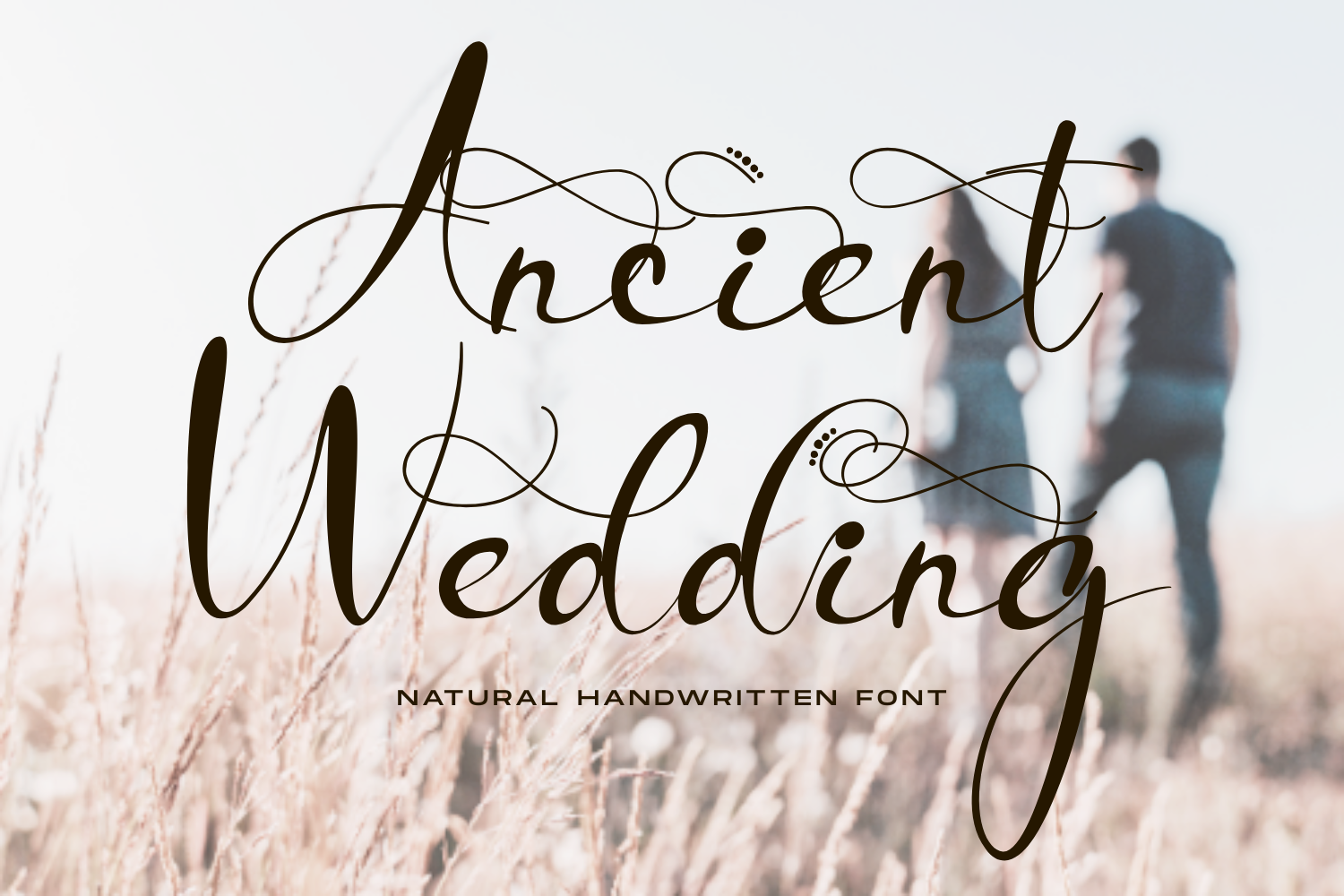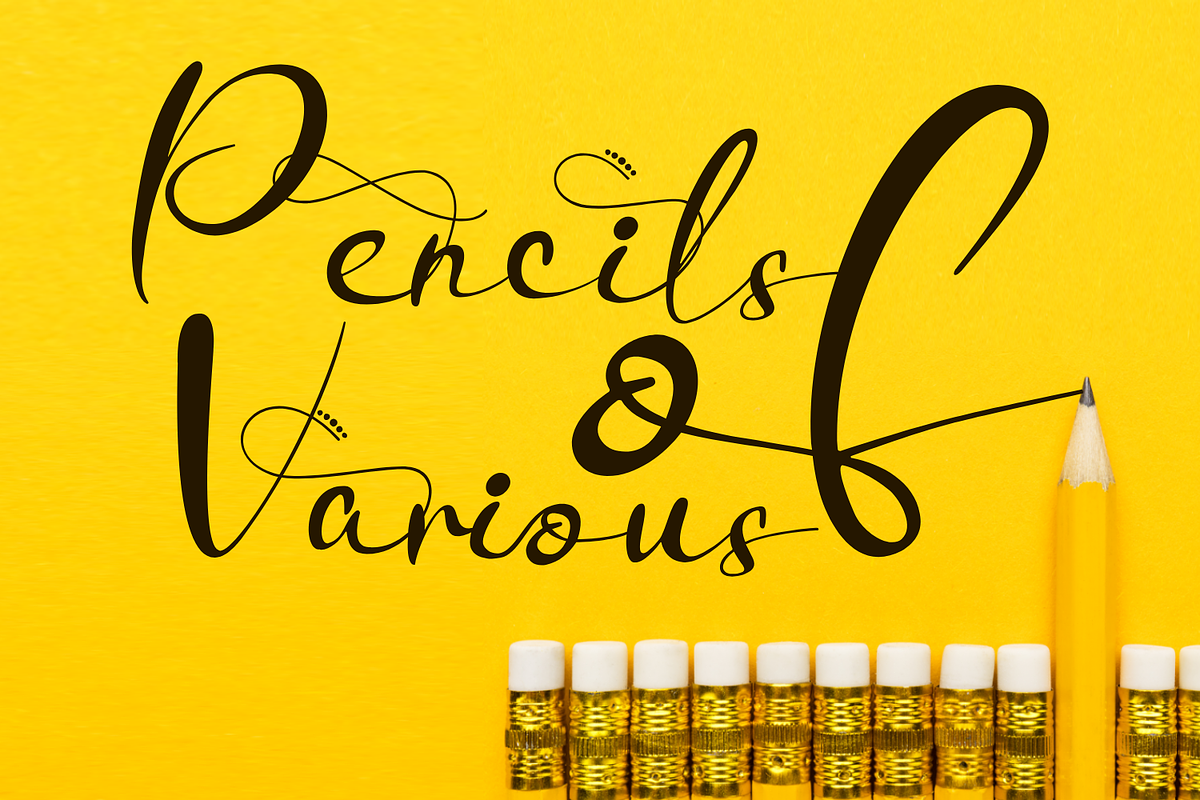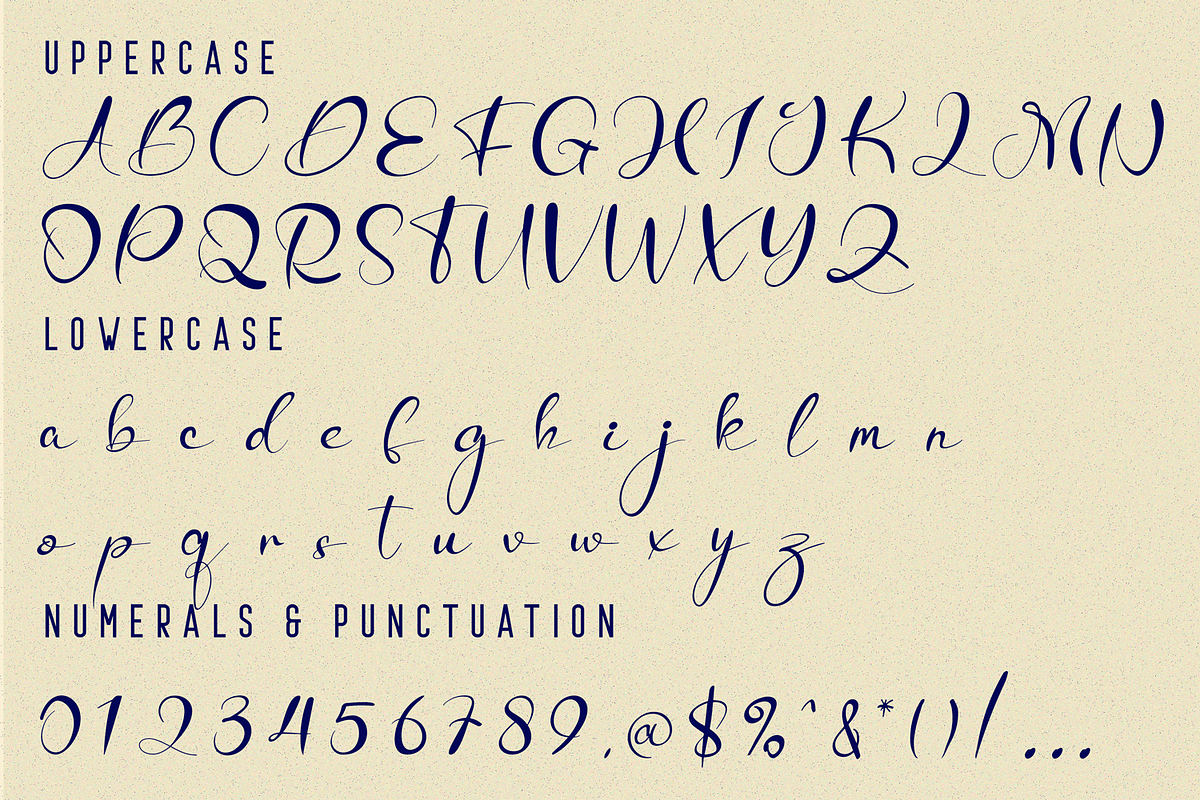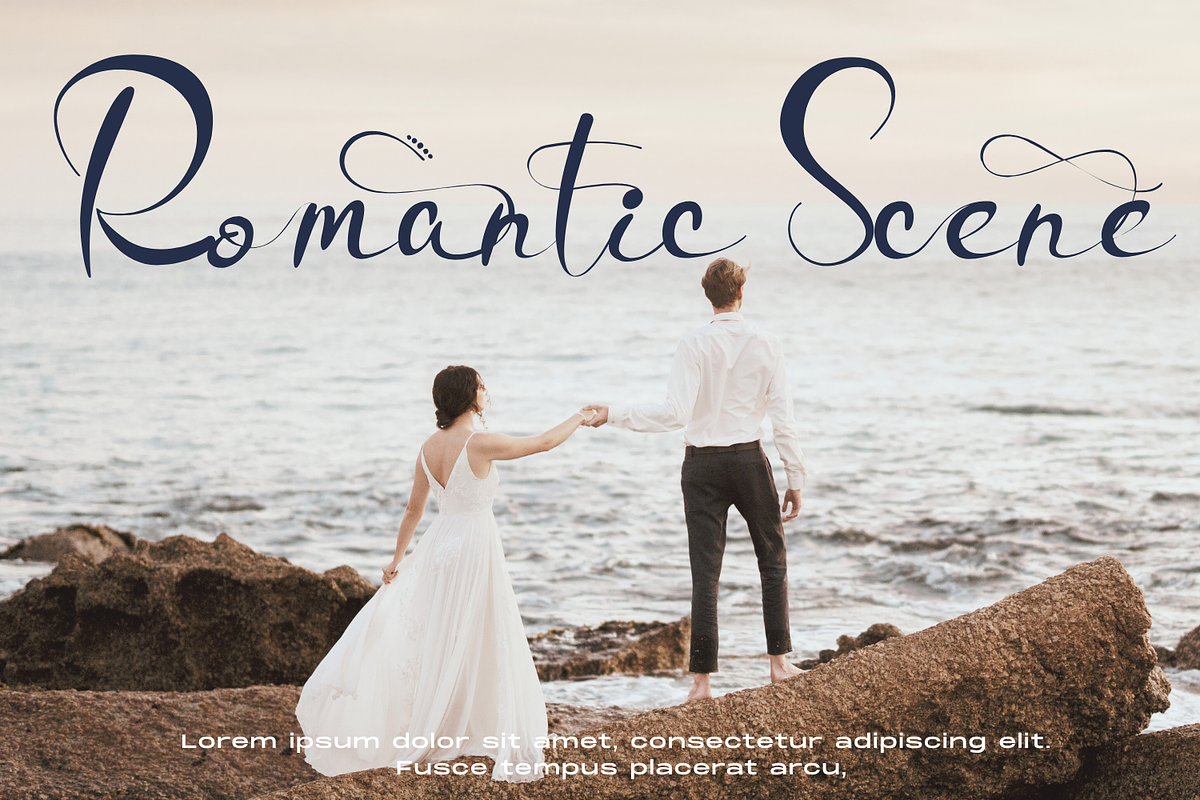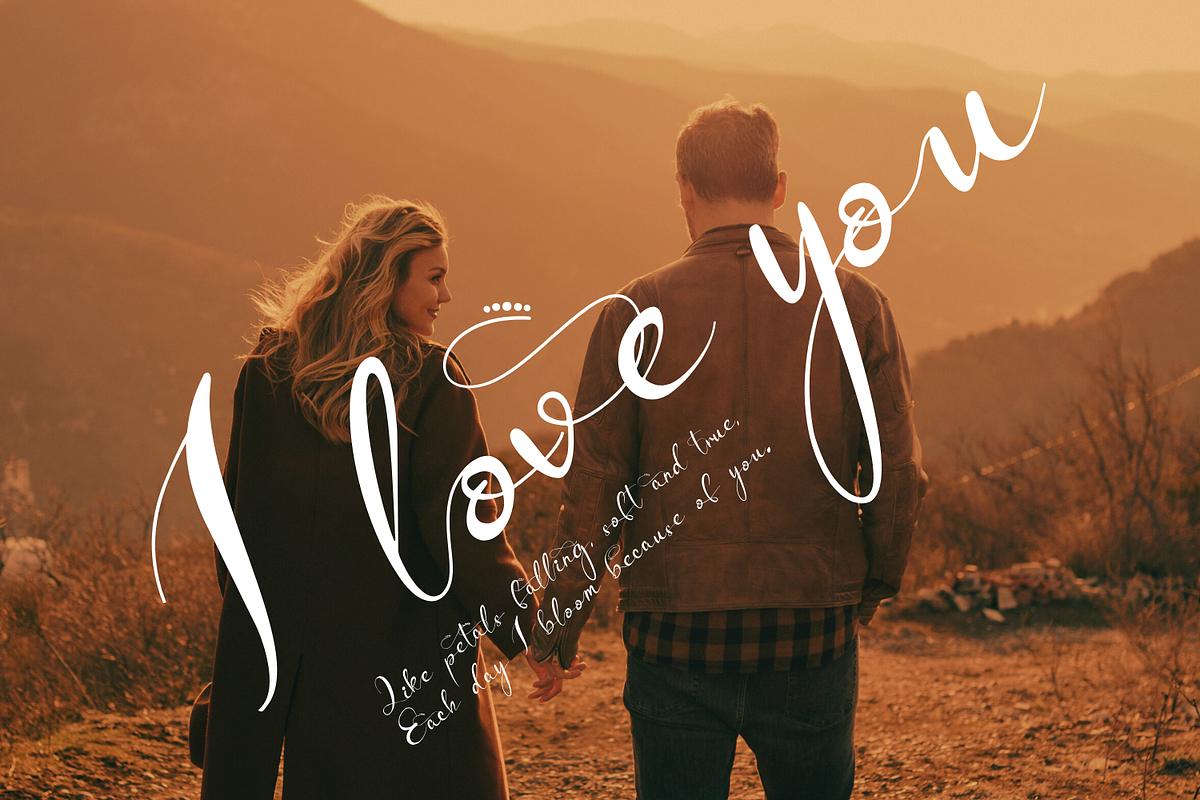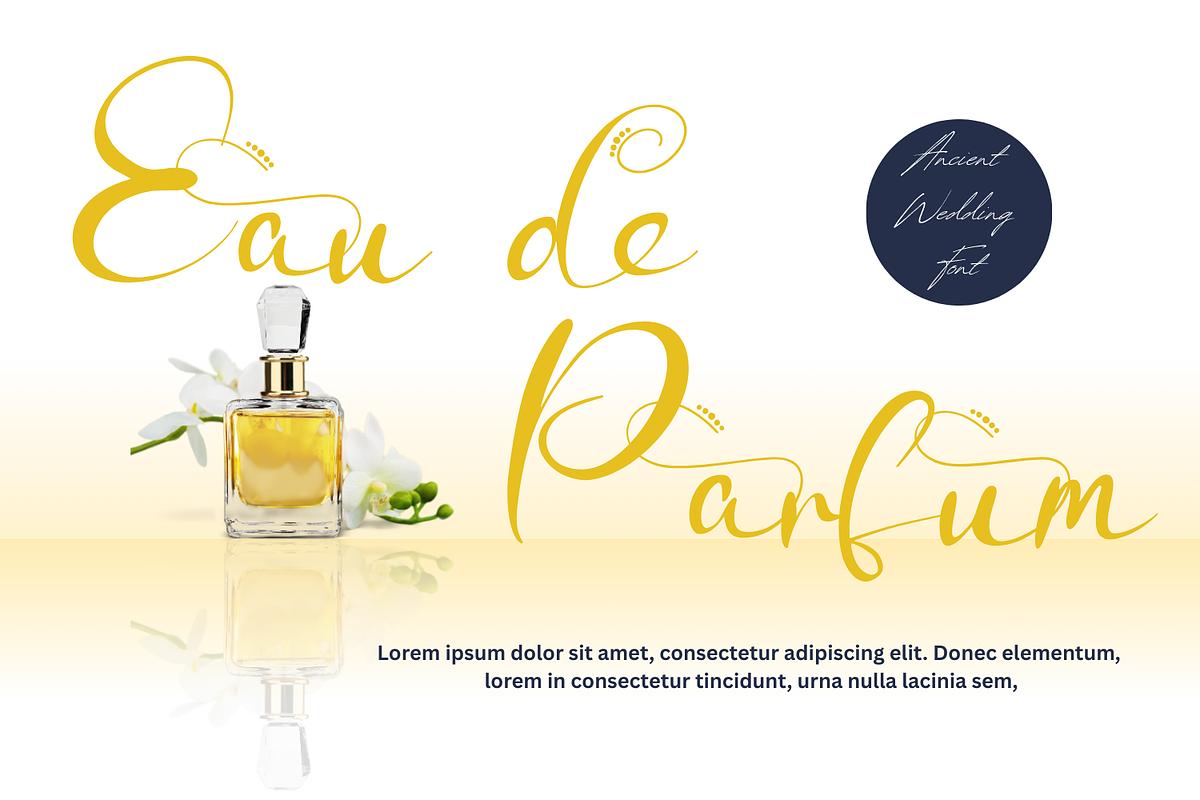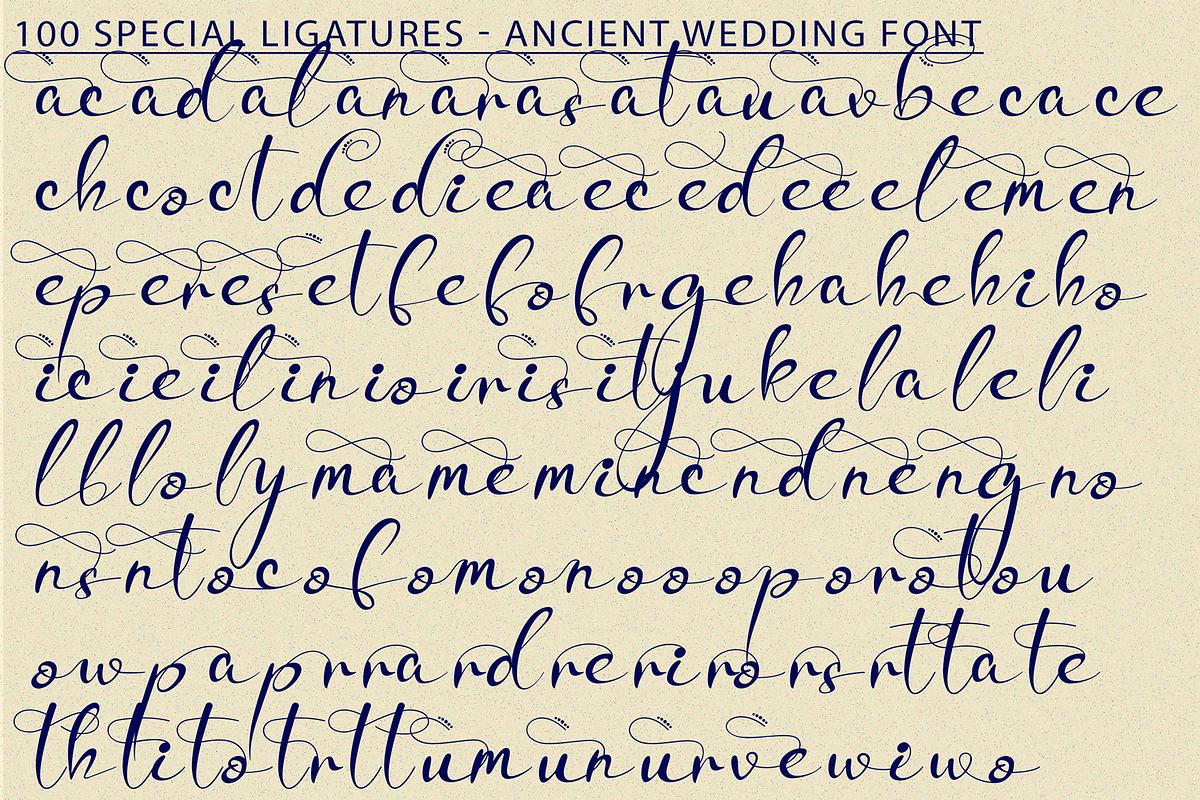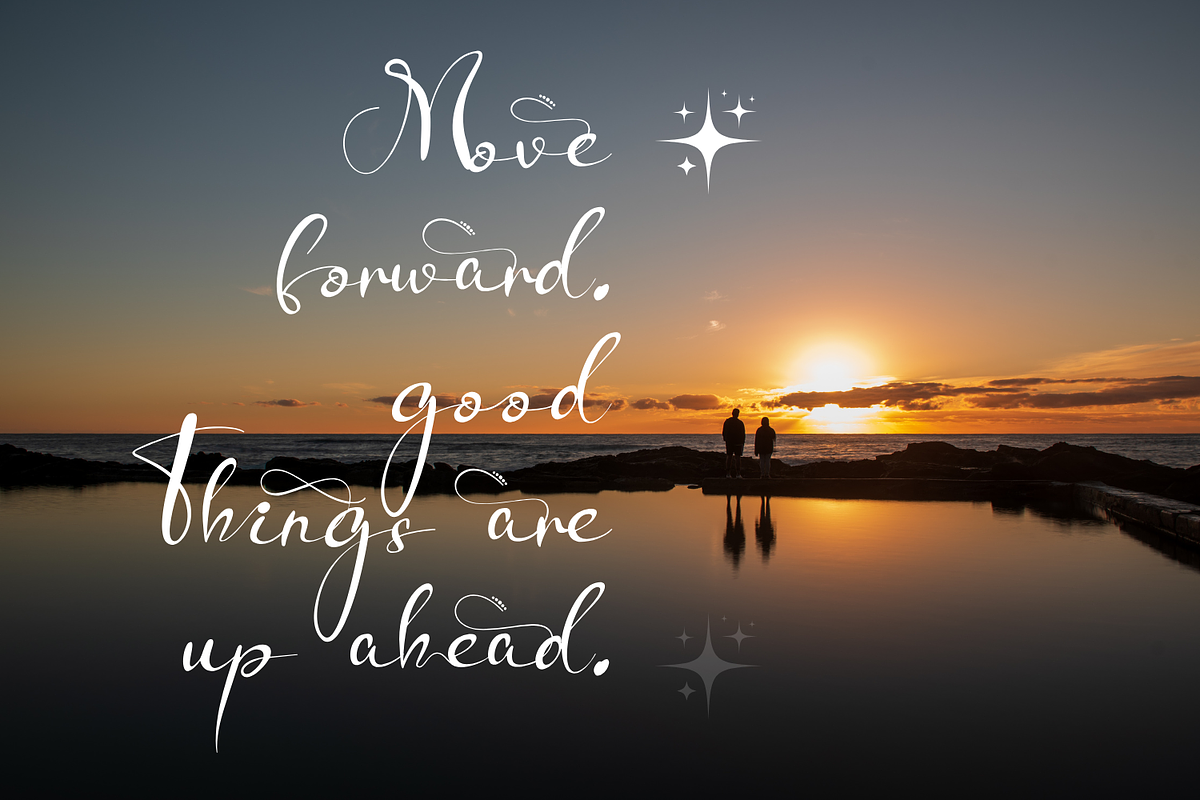
Ancient Wedding - Script Font
Ancient Wedding Font - An Elegant Calligraphy Script Font. Discover the elegance and natural flow of Ancient Wedding, a beautifully crafted handwritten script font designed to bring sophistication and a personal touch to your projects. Inspired by the timeless art of calligraphy, Ancient Wedding features graceful curves, flowing connections, and a romantic aesthetic that feels both classic and contemporary.
✔ Uppercase & Lowercase Letters
✔ 100+ Unique Decorative Ligatures
✔ Numerals & Punctuation
✔ Multilingual Accented Characters
✔ Butterfly-inspired stylistic alternates
About 100 ligatures combined with Stylistic Alternates Font:
ac ad al an ar as at au av be ca ce ch co ct de di ea ec ed ee el em en ep er es et fe fo fr ge ha he hi ho ie ic il in io ir is it ju ke la le li ll lo ly ma me mi nc nd ne ng no nt ns oc of om on oo op or ot ou ow pa pr ra rd re ri ro rs rt se sh si so ss st ta te th ti to tr tt um un ur ve wi wo